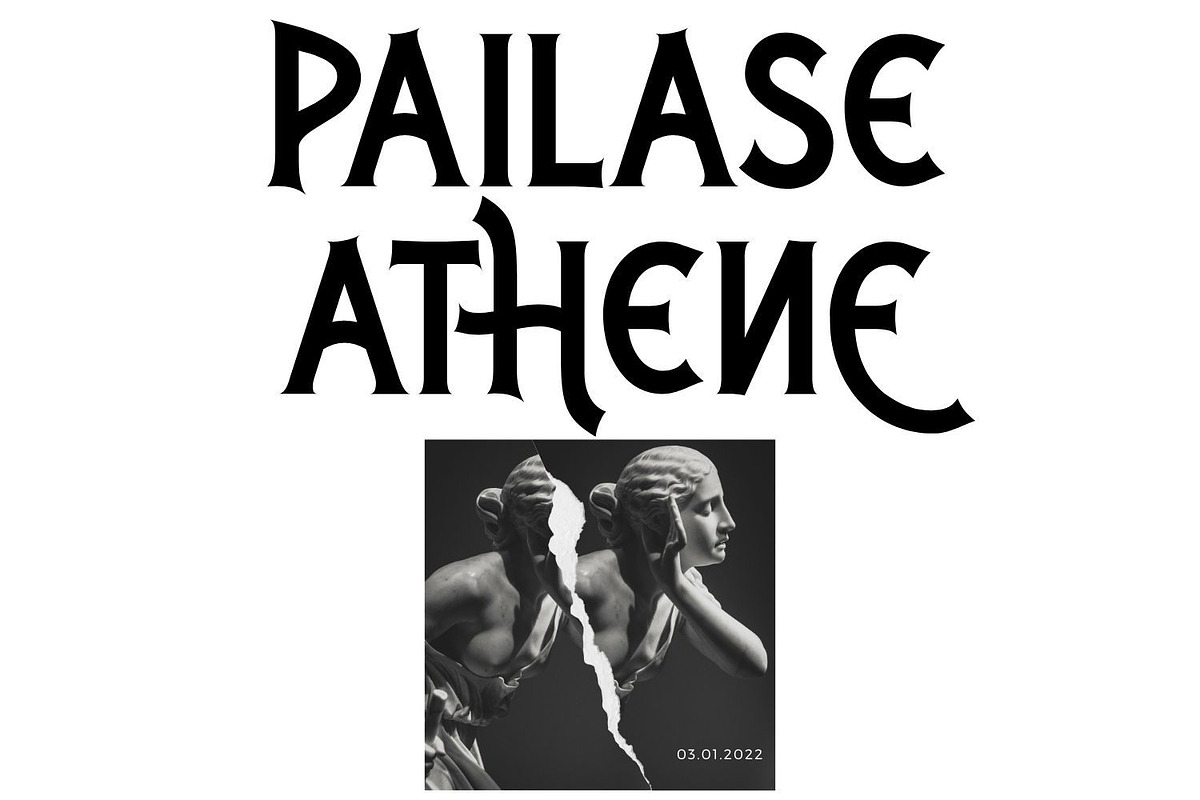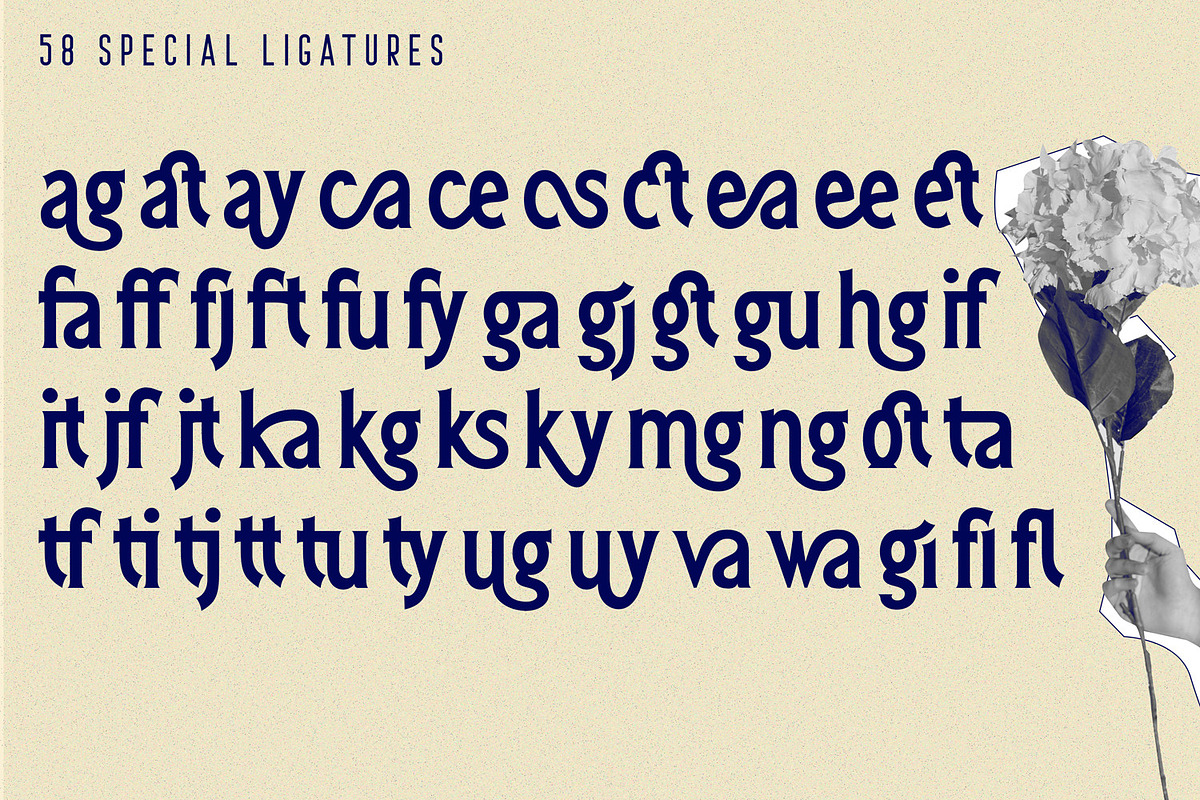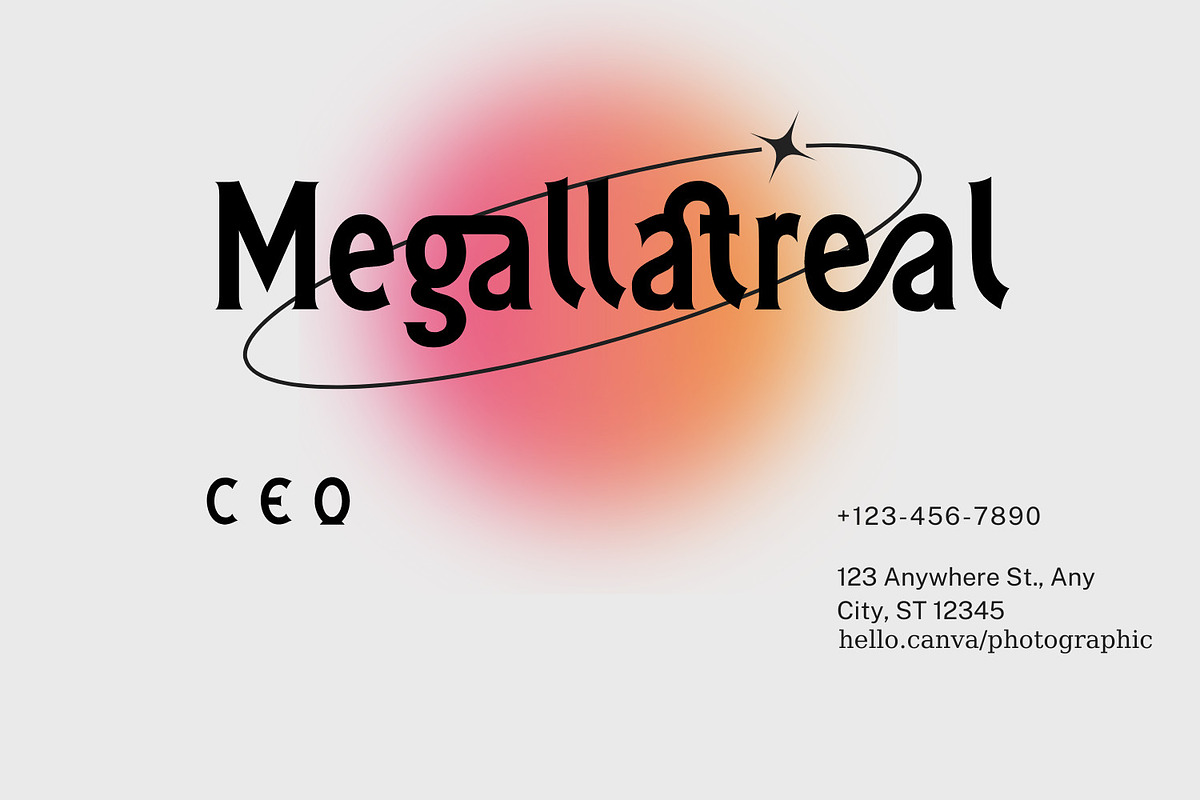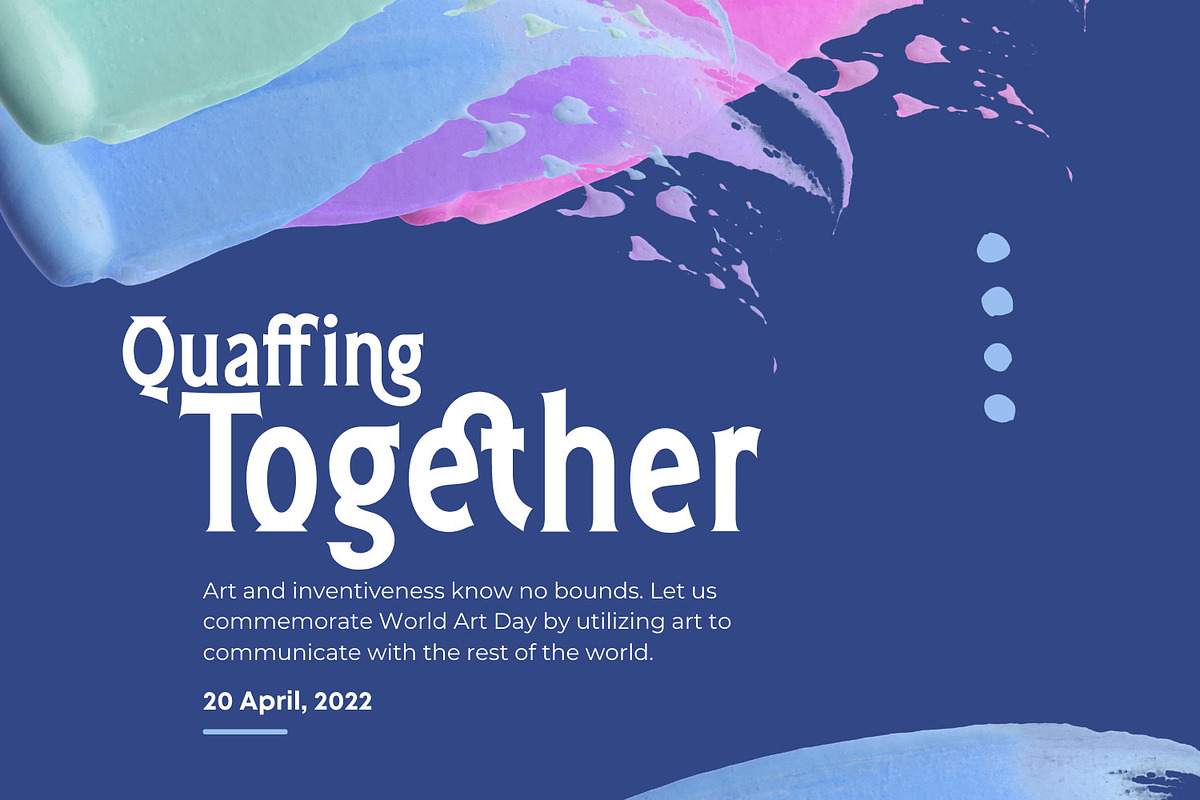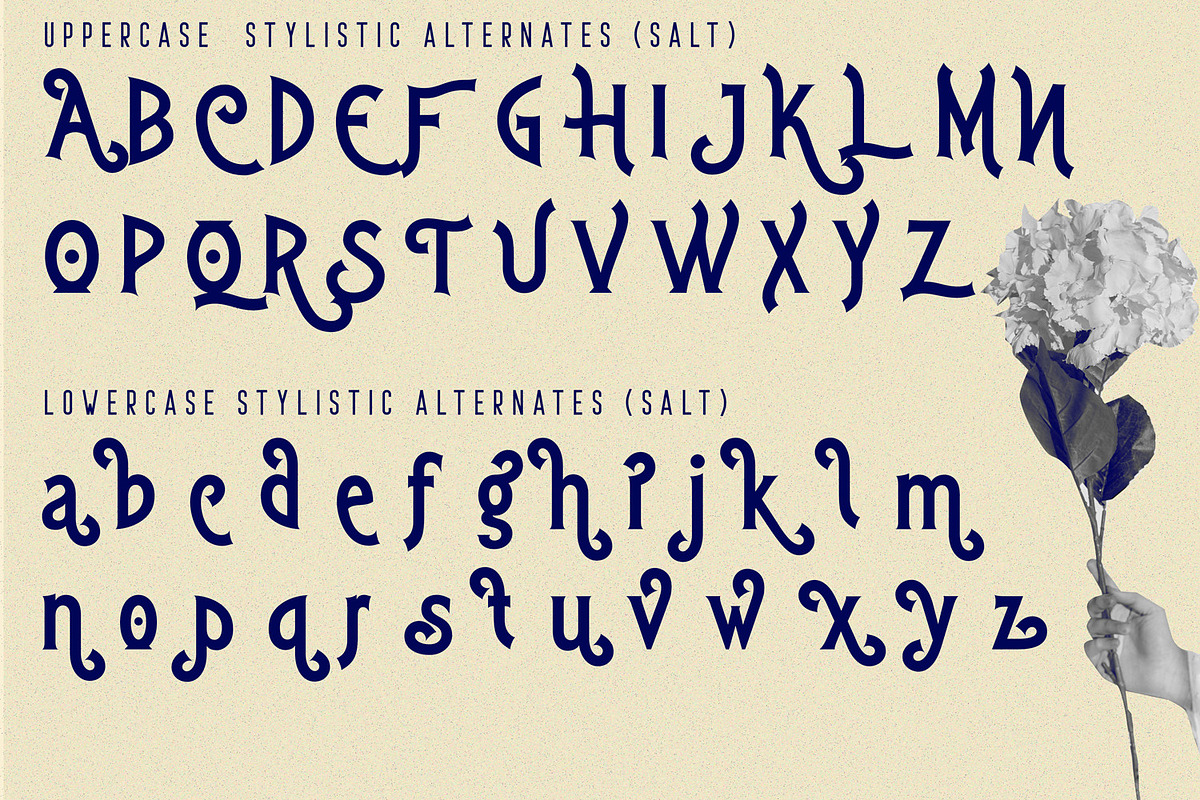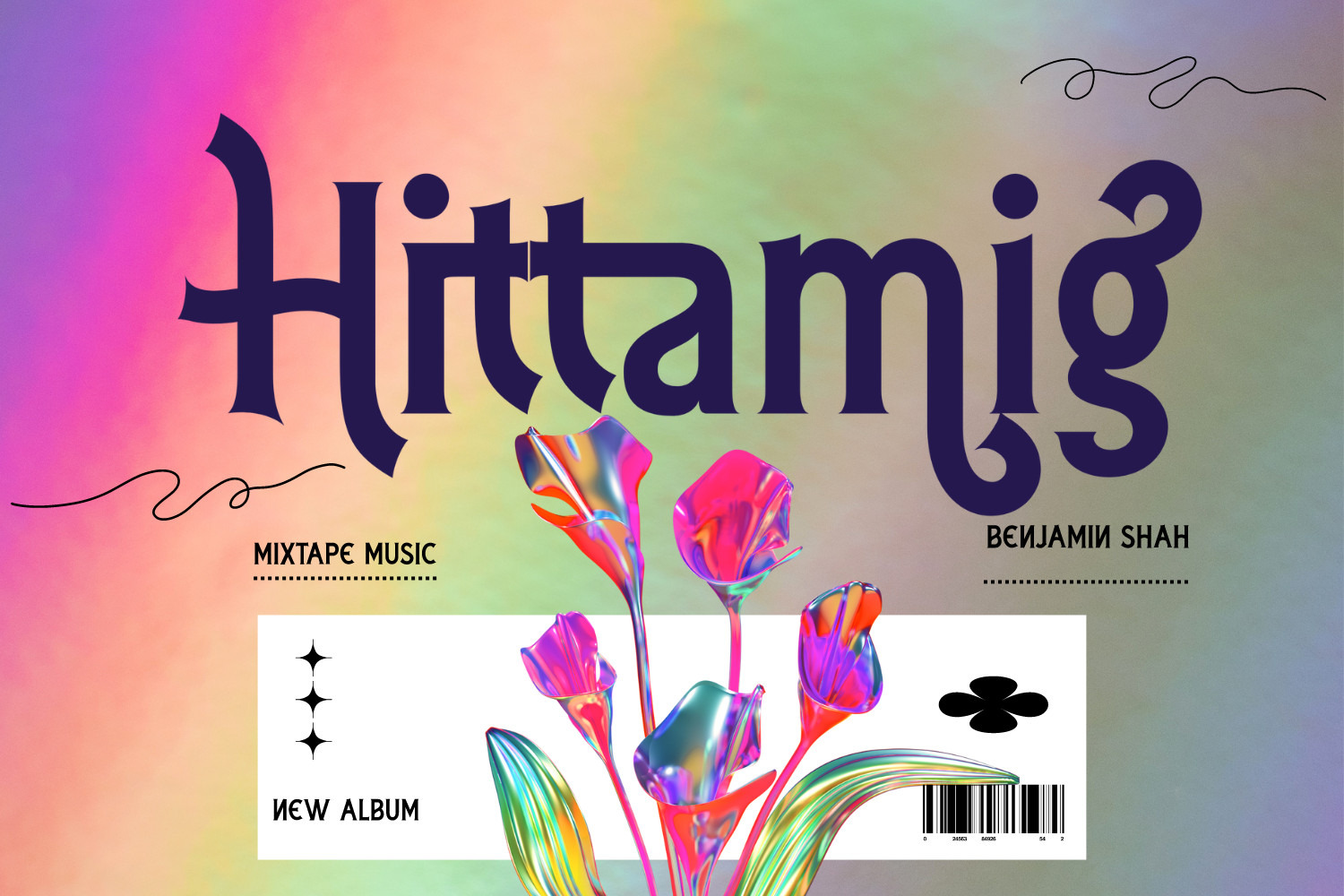
Hittamig - Aesthetic Serif Font
Hittamig Font is a modern display type with Serif. It's a Classy serif typeface Unique alternate , multilingual support with perfect kerning. This font is suitable for invitation cards, decorations, clothing, greeting cards and others. This font also has uppercase, lowercase, numbers, punctuation, and multilingual. and there are several ligatures and stylistic alternatives.
To make it look more unique, here we prepared some ligatures:
ag at ay ca ce cs ct ea ee et fa ff fj ft fu fy ga gj gt gu hg if it jf jt ka kg ks ky mg ng ot ta tf ti tj tt tu ty ug uu va wa gi fi fl
Hittamig is also included full set of:
- Special Ligatures